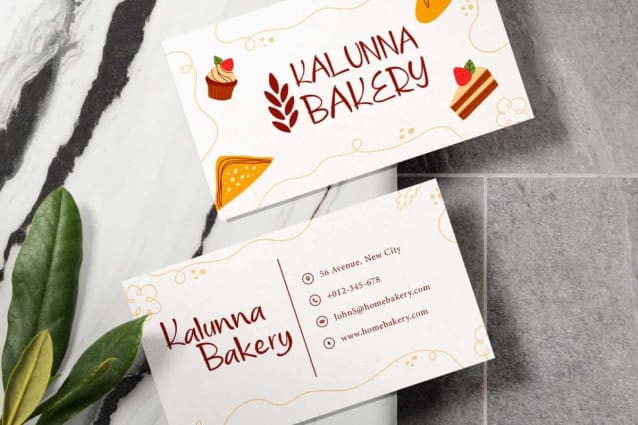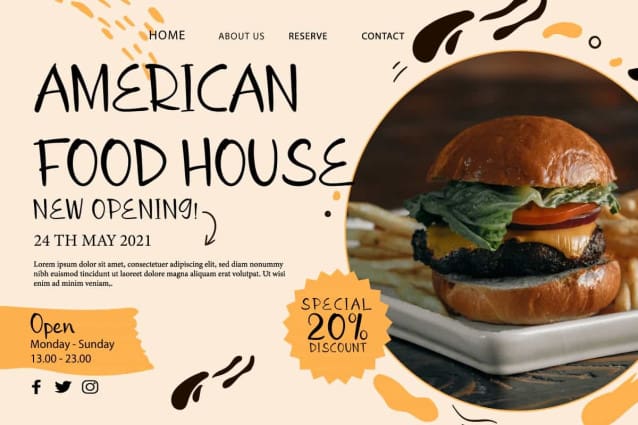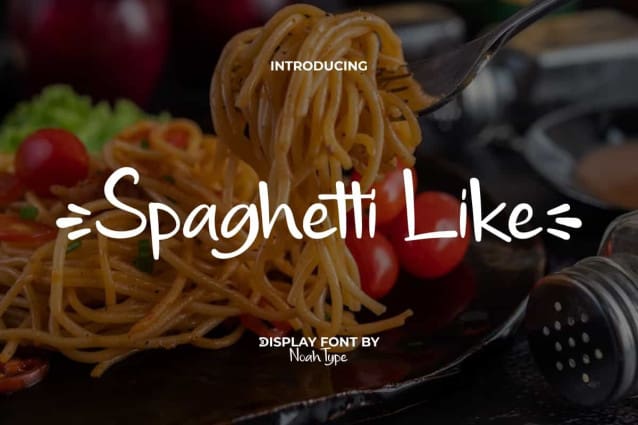
Spaghetti Like Font
Spaghetti Like Font is a playful foodist display font with a stylish cheerful handwriting look. This font has thin spaghetti-like lines, giving a pleasant impression. It will be perfect for any designs, such as brand image, custom design, invitation, label, marketing material, menu, poster, product packaging, quotes, stationery, web, and many more!
Spaghetti Like Font includes full set of Uppercase and Lowercase Basic Characters, Numerals, Punctuation, and Symbol. This cute font also contain Swoosh characters and will be perfect choice for many industries, such as advertising, bakery and pastry, cafeteria, event or festival, furniture, photography, printing, publishing, restaurant, etc.